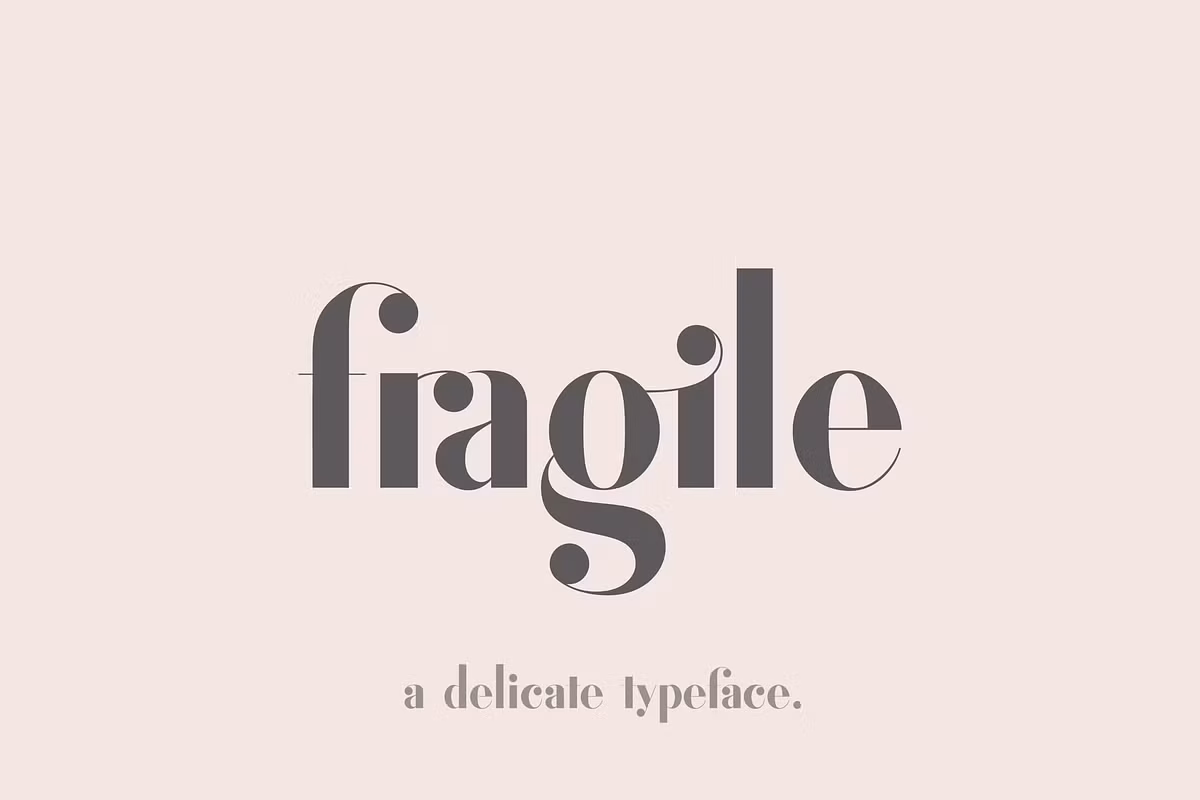
Fragile - A Delicate Typeface Free Download
Elegant, refined, and minimalist, Fragile - A Delicate Typeface Free Download is the perfect choice for high-end branding, editorial layouts, wedding stationery, and fashion-inspired designs. With its thin strokes and graceful spacing, this typeface evokes sophistication and softness, making your text feel effortlessly luxurious.
Fragile is designed to elevate your visual storytelling with a clean yet distinctive presence. It works beautifully in large display sizes where its delicate forms can shine, adding a modern and airy touch to any creative project.